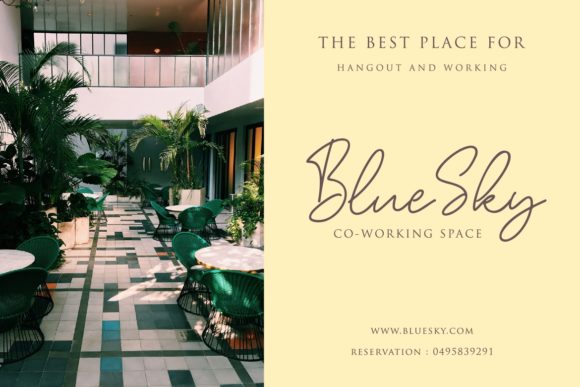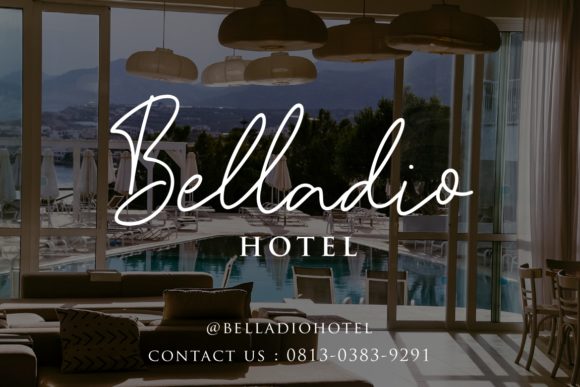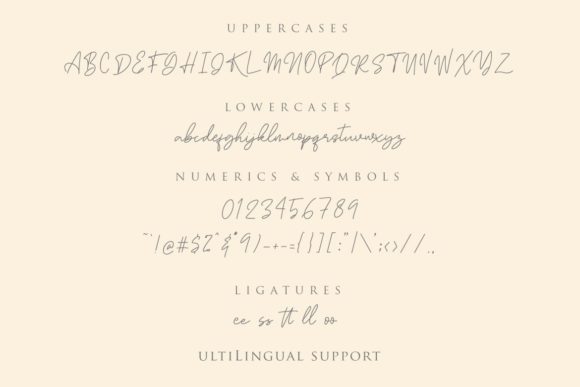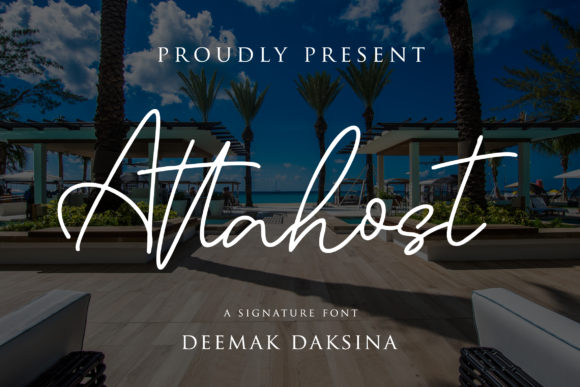
Introducing Attahost Font: Elevate Your Designs with Elegance
Are you on the hunt for a font that exudes elegance and sophistication? Look no further than Attahost Font, a stunning handwritten font that is sure to capture your heart. With its flowing lines and timeless style, Attahost is the perfect addition to any design project. In this article, we’ll dive into the world of Attahost Font, exploring its unique features, uses, and benefits for designers and crafters alike.
The Story Behind Attahost Font
Attahost Font is a carefully crafted handwritten font, designed to bring a touch of elegance to your favorite projects. Its creator aimed to develop a font that not only stands out but also evokes a sense of sophistication and refinement. The result is a font that is both distinct and timeless, perfect for designers seeking to add a personal touch to their work.
Key Features of Attahost Font
- Flowing Lines: Attahost Font boasts smooth, flowing lines that give it a dynamic and organic feel.
- Elegant Touch: The font’s elegant touch makes it perfect for projects that require a sophisticated and refined aesthetic.
- Distinct Style: Attahost’s incredibly distinct style sets it apart from other fonts, making it a great choice for designers seeking to create unique and memorable designs.
- Timeless Appeal: The font’s classic design ensures that it will remain relevant for years to come, making it a valuable addition to any design library.
Uses of Attahost Font
Attahost Font is incredibly versatile, making it suitable for a wide range of design projects. Here are some ideas to get you started:
- Logo Design: Use Attahost Font to create stunning logos that exude elegance and sophistication.
- Branding: The font’s unique style makes it perfect for branding projects, helping you to establish a strong and recognizable identity.
- Packaging Design: Add a touch of elegance to your packaging designs with Attahost Font, perfect for luxury brands and high-end products.
- Stationery: Create beautiful stationery, including business cards, letterheads, and invoices, with Attahost Font.
Attahost Font offers numerous benefits for designers and crafters, including:
- Easy to Read: The font’s clear and flowing lines make it easy to read, even at small sizes.
- Highly Versatile: Attahost Font can be used for a wide range of design projects, from logos and branding to packaging and stationery.
- Unique Style: The font’s distinct style ensures that your designs will stand out from the crowd.
- Time-Saving: With Attahost Font, you can create stunning designs in no time, thanks to its ease of use and versatility.
Tips for Using Attahost Font
To get the most out of Attahost Font, here are some tips to keep in mind:
- Experiment with Sizes: Attahost Font looks great at a range of sizes, from small and delicate to large and bold.
- Play with Colors: The font’s elegant style looks great in a variety of colors, from classic black and white to bold and bright hues.
- Mix and Match: Combine Attahost Font with other fonts to create unique and interesting typography.
In conclusion, Attahost Font is a stunning handwritten font that is sure to elevate your designs to the next level. With its flowing lines, elegant touch, and timeless style, it’s the perfect addition to any design project. Whether you’re a designer, crafter, or simply someone who appreciates great typography, Attahost Font is a must-have in your toolkit. So why wait? Fall in love with Attahost Font and start creating spectacular designs today!